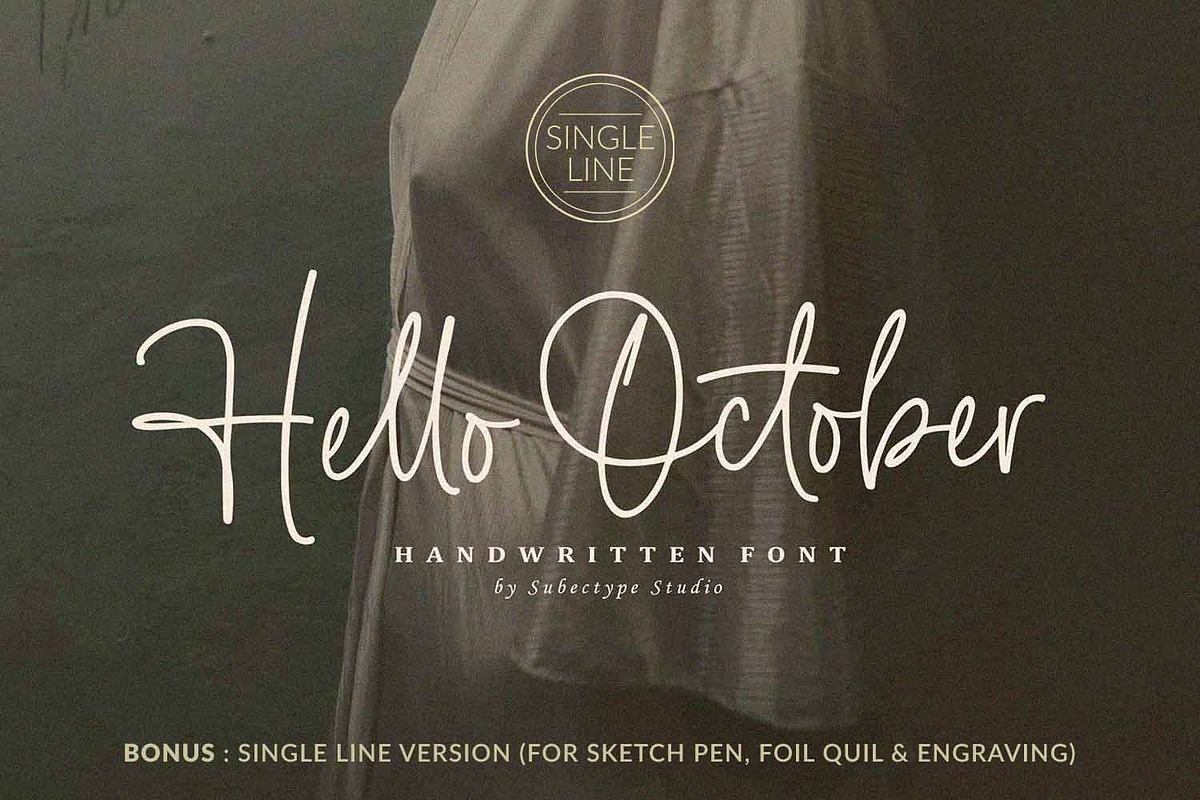
Hello October - Single Line Font Free Download is a delicate and elegant script font designed with precision for engraving, CNC machines, laser cutting, and sketch pen projects. Its continuous single-line style creates a seamless, handwritten look that’s perfect for personalized gifts, crafts, logos, and modern branding.
This font is optimized for both digital and physical design applications, offering smooth performance across Mac and Windows systems. It includes basic punctuation, numerals, and multilingual support, making it a versatile tool for makers and designers alike.